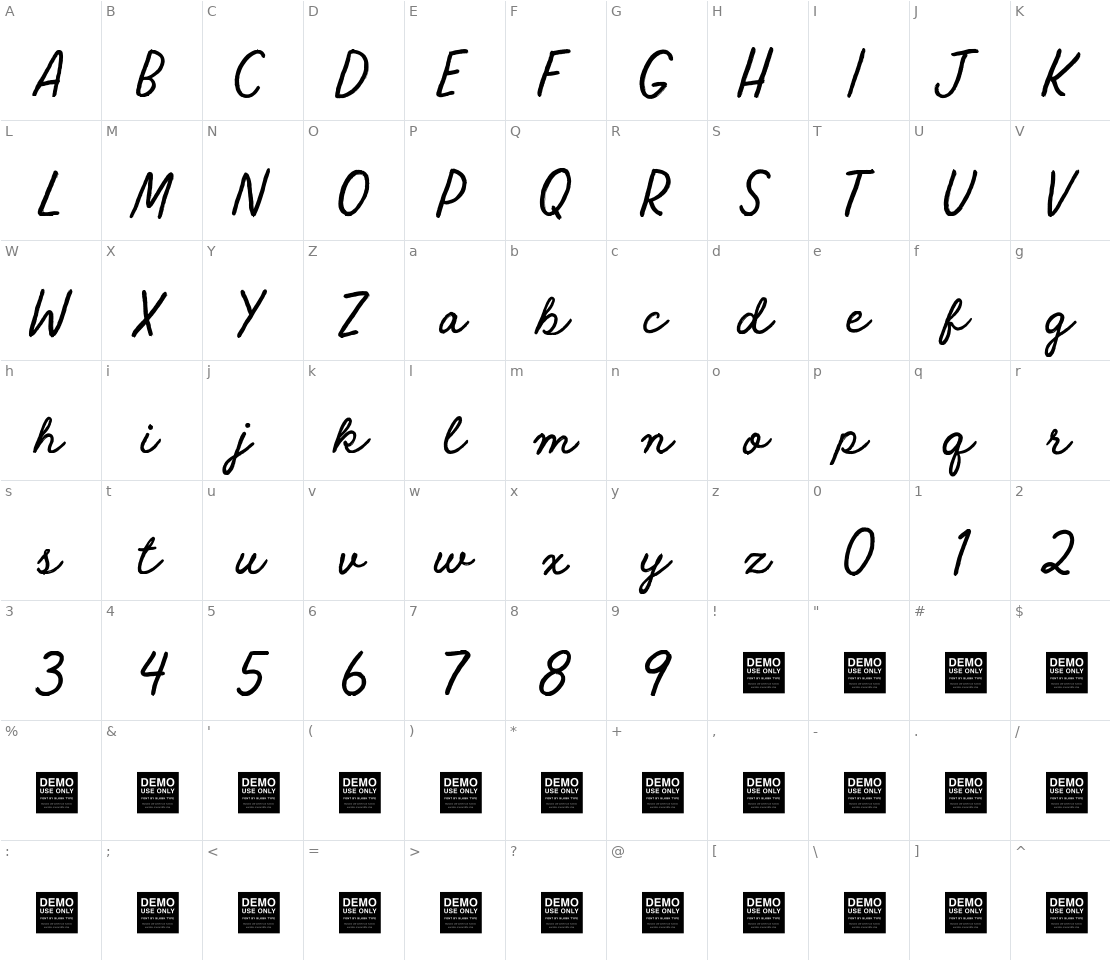
Raw Selvedge
by BLKBK Fonts · Website
Raw Selvedge is a thin, flowing cursive from BLKBK Fonts with the easy confidence of a well-practiced signature. The strokes feel natural and unhurried, balancing elegance with a casual looseness that keeps it from reading as overly formal. A strong pick for personal branding, invitations, logos, and editorial accents where you want something that feels intimate and hand-signed.